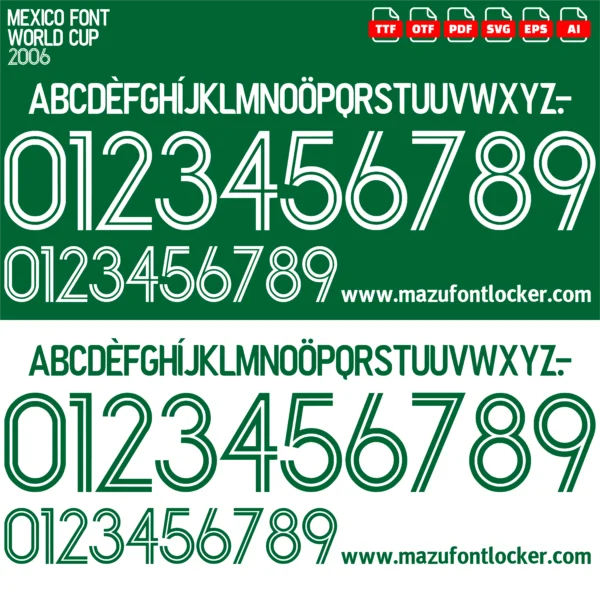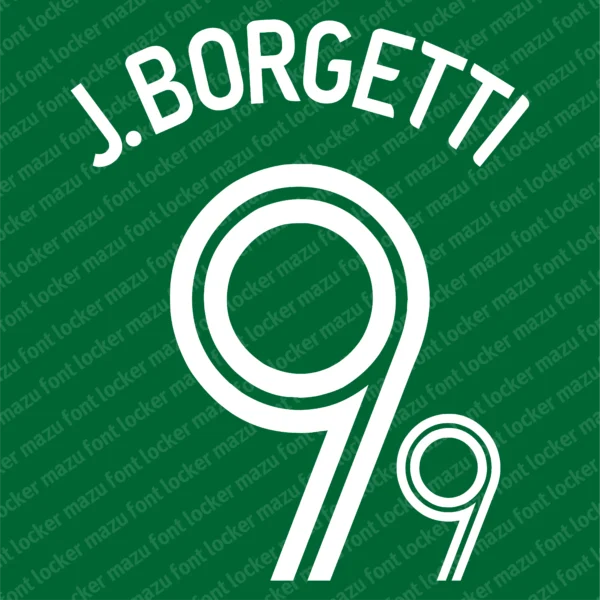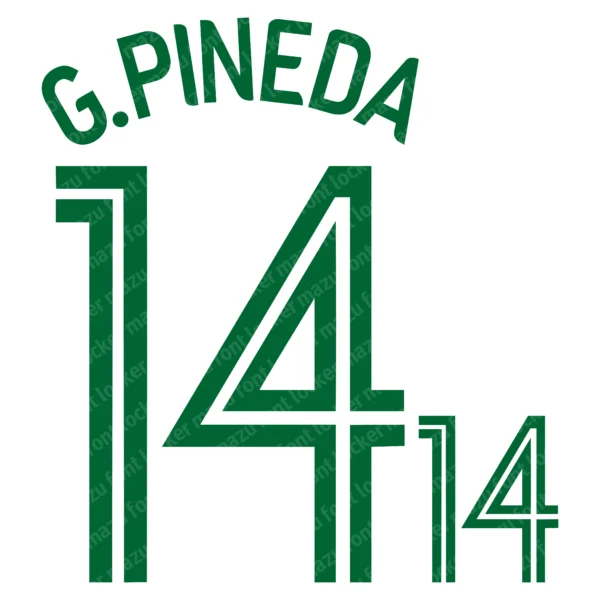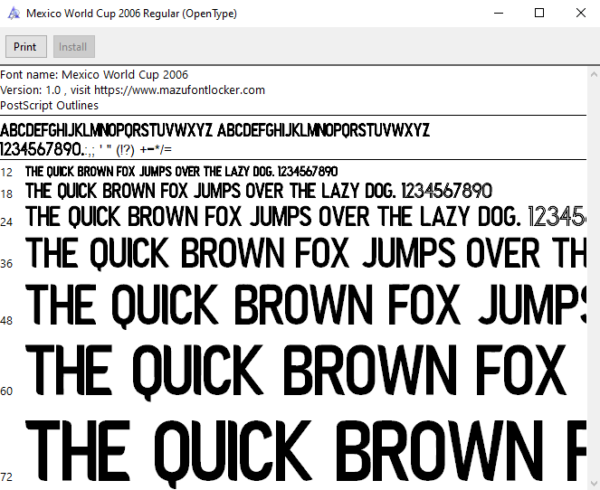
Mexico World Cup 2006 Font Vector – Legendary Tricolor Glory Masterpiece
This premium font captures the commanding, iconic, majestic, and war-machine lettering that embodies the unstoppable El Tri spirit — delivering raw Aztec fire, explosive La Ola passion, iron-clad resilience, tactical dominance, and legendary Mexican warrior grit that ignited the hearts of millions.
Mexico World Cup 2006 Font Vector – Authentic Tricolor Typeface
The Mexico World Cup 2006 Font Vector is a premium typeface that accurately recreates the official match lettering worn by the Mexico National Team during the 2006 FIFA World Cup in Germany. This high-quality vector font kit captures the bold, proud, and passionate typography that represents Mexico’s rich football heritage, attacking spirit, and legendary “El Tri” journey.
Why Choose Mexico World Cup 2006 Font Vector
This font stands out because of its sharp vector precision and strong national identity. Every letter and number is crafted to match the exact style used on the players’ shirts during Mexico’s 2006 World Cup campaign. Whether you are creating realistic kit templates or exciting El Tri-themed content, the Mexico World Cup 2006 Font Vector gives your designs that authentic Azteca Stadium atmosphere.
The letterforms in the Mexico World Cup 2006 Font Vector are bold, clean, and highly readable. The strokes feature elegant geometric construction combined with modern athletic styling and traditional Mexican flair, creating a professional appearance that stands out on jerseys while preserving Mexico’s legendary football heritage and competitive spirit.
The numerals feature strong curves and sharp, precise edges, delivering a confident and premium appearance. This vector design ensures flawless scalability and excellent legibility across both print and digital applications.
- Full uppercase A–Z and numbers 0–9 in authentic Mexico World Cup 2006 style
- Multilingual Latin character support including English and special characters
- Includes the exact crest glyph placement used beneath player numbers
Mexico World Cup 2006 Campaign